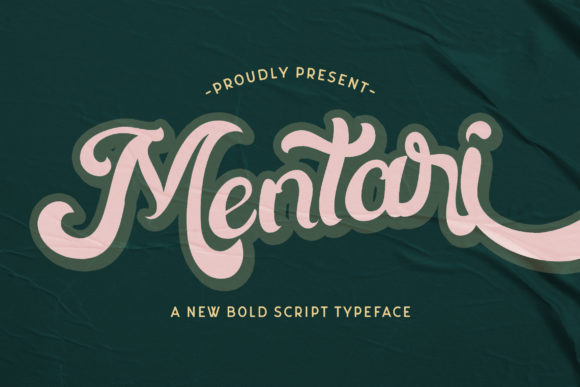
Embark on an artistic journey with Mentari, a captivating script font that will ignite your creativity and leave an unforgettable mark on your designs. Its alluring curves and vintage charm evoke a sense of nostalgia, making it the perfect choice for expressing your unique style.
Indulge in the endless possibilities of Mentari, a font that dances across the page with playful characters and an effortless flow. Whether you're crafting eye-catching branding, designing heartfelt stationery, or immortalizing meaningful quotes, Mentari will infuse your creations with a touch of whimsy and timeless elegance.
Step into a world where imagination thrives and words take on new life. Mentari's intricate details and flowing lines will captivate your audience, inviting them to embark on a visual adventure. Its versatility knows no bounds, making it the ideal companion for both digital and print projects.
Unlock the secrets of Mentari and watch your designs bloom with a captivating flair. Its vintage-inspired aesthetic adds a touch of nostalgia to modern creations, while its contemporary elegance ensures that your message stands out from the crowd.